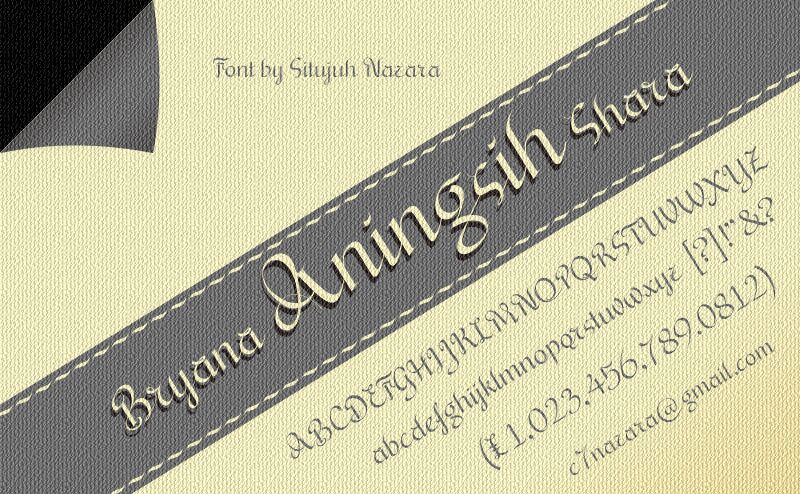
Bryana Aningsih Shara from Situjuh Nazara is a free calligraphic script with broad, dark strokes and exceptionally fine hairlines. Large looping forms, sudden changes in weight, and long curling flourishes give the lettering a formal yet highly theatrical silhouette.
Packaging offers a natural home for its ornamental sweep, especially on perfume labels and confectionery boxes. It also suits wedding invitations and fashion editorials. The extravagant curves can echo ribbons, botanical linework, or decorative frames, making the type part of the surrounding illustration rather than a separate caption.